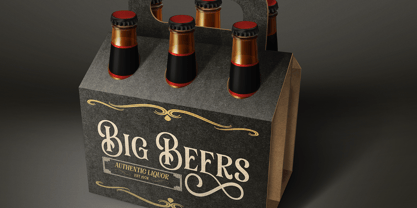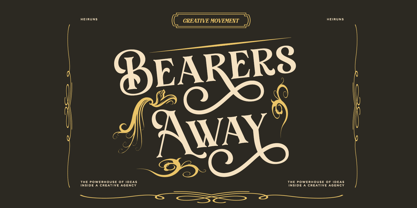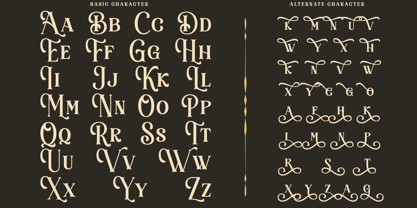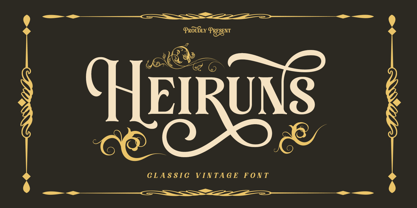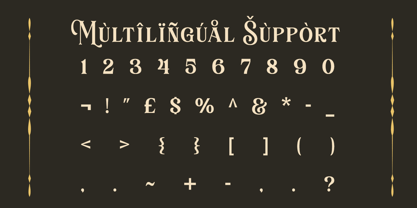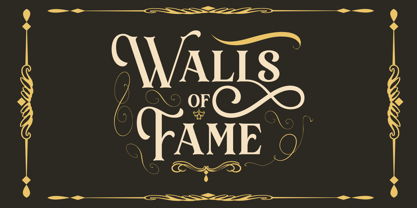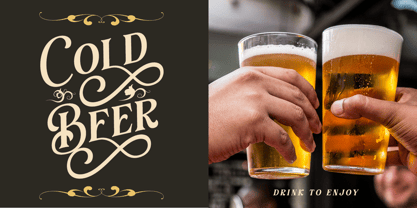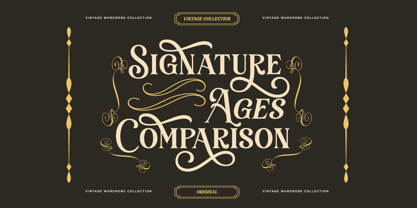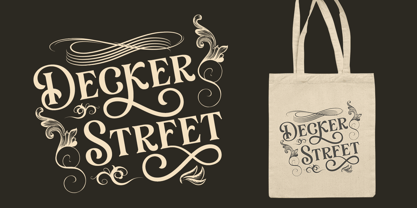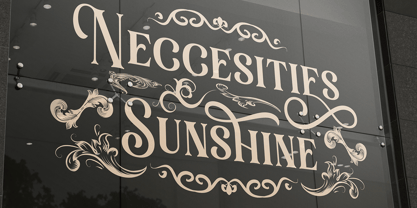
Heiruns
The Heiruns Font Family was designed by Mussyayin and published by Sayfont. Heiruns contains 2 styles and family package options. More about this family
Proudly presenting Heiruns, a bold and elegant classic vintage font that brings timeless sophistication to your designs. Inspired by vintage sign painting and ornate typography of the early 20th century, Heiruns is perfect for branding projects that demand a touch of class and flair. Perfect for crafting a whiskey label, a barbershop logo, or a retro event flyer, Heiruns adds a strong sense of character and historical charm. The font is rich in decorative elements, giving you the flexibility to create both clean and embellished compositions. Whats Included : - Heiruns Regular - Heiruns Italic - Multiple Alternates - Multilingual Suppot - Symbol, and Numbers. Thank You Have a nice Day ! Say Studio